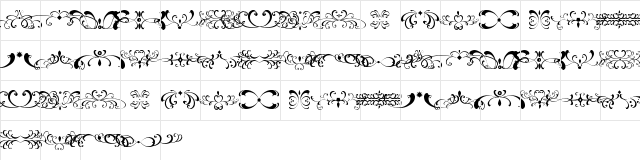
filigrees and ornaments ST Regular
Design Context for filigrees and ornaments ST Typeface
filigrees and ornaments ST brings ornamental detail and strong personality to headlines and identities, where visual impact matters more than quiet functionality.
Font Pairing: Pair with a clean neutral sans-serif for body copy to let filigrees and ornaments ST's character lead without overwhelming the composition.
Pro Tip: Treat filigrees and ornaments ST as the centrepiece of your typographic hierarchy. One strong heading set in a decorative face can carry an entire layout.